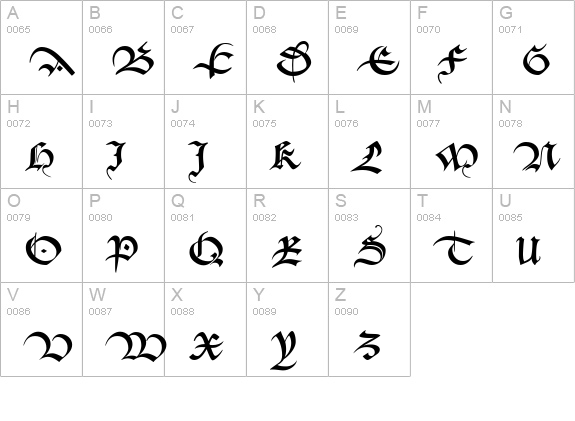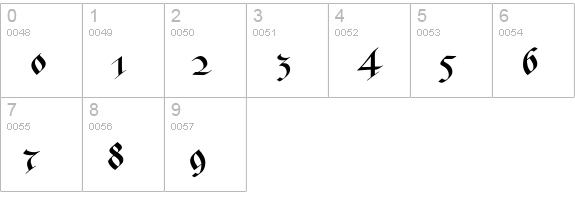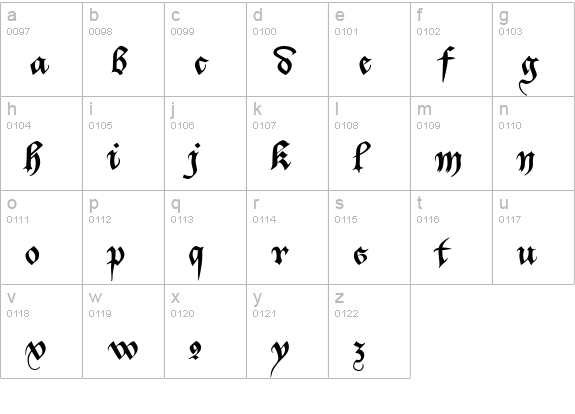
Bastarda-K Font Details
Bastarda-K font is a unique and versatile typeface that combines classic elegance with a modern twist. Its intricate letterforms and sharp angles exude a sense of sophistication and style, making it perfect for a wide range of design projects. Whether you're creating branding materials, invitations, or editorial layouts, Bastarda-K will add a touch of class and individuality to your work. What's even better is that Bastarda-K is available for free download at FontsMarket.com. This means you can easily access this stunning font and use it in your projects without any cost. So why wait? Elevate your designs with the distinctive charm of Bastarda-K today!